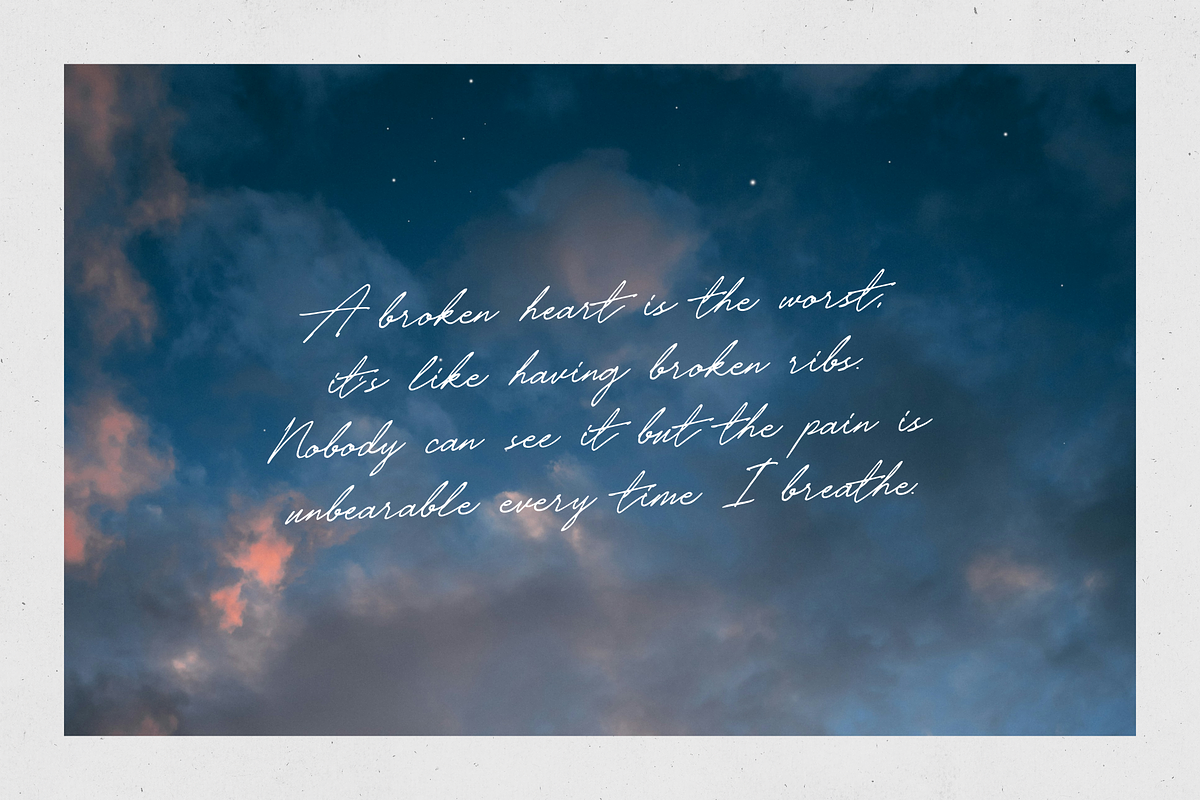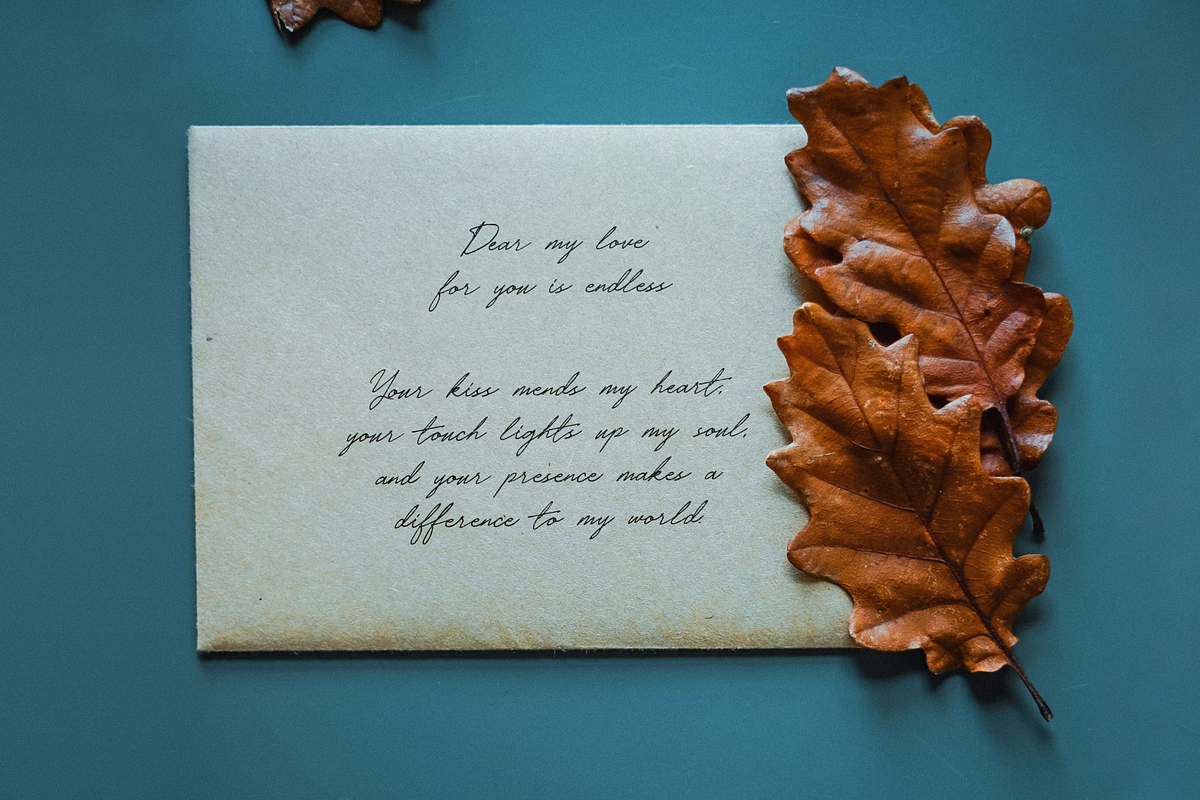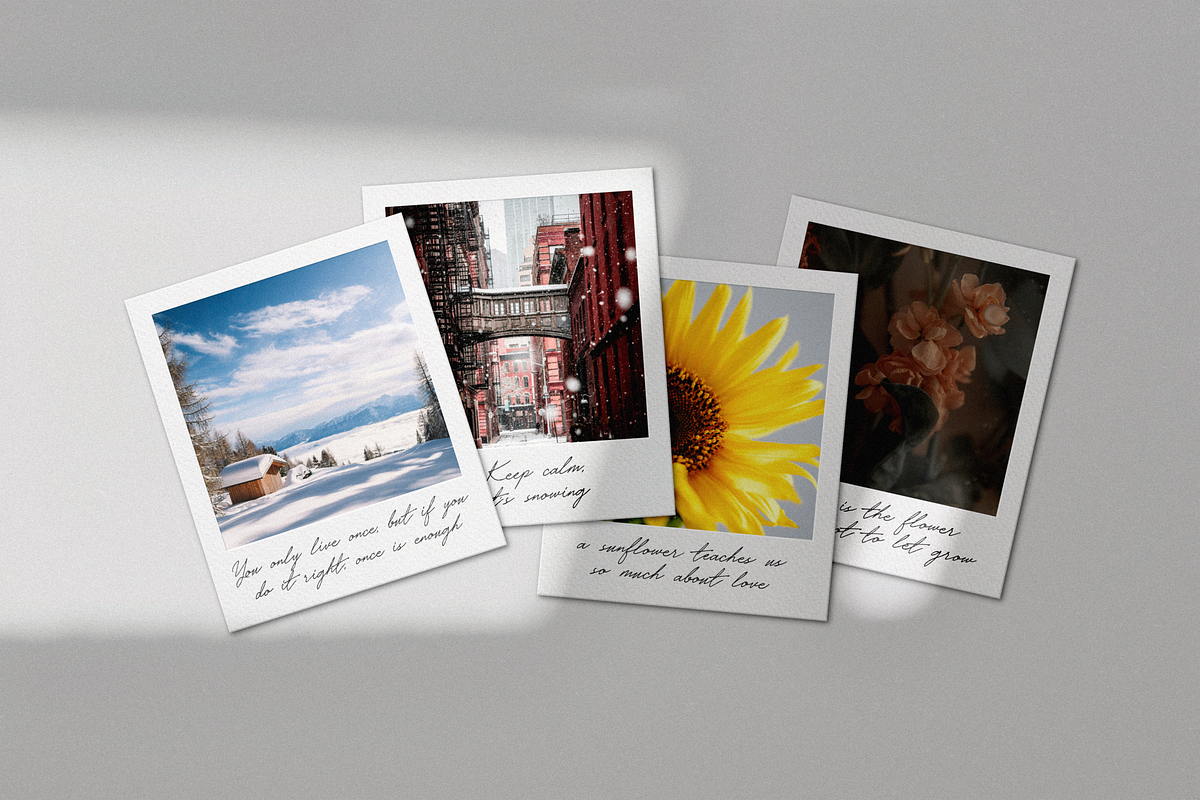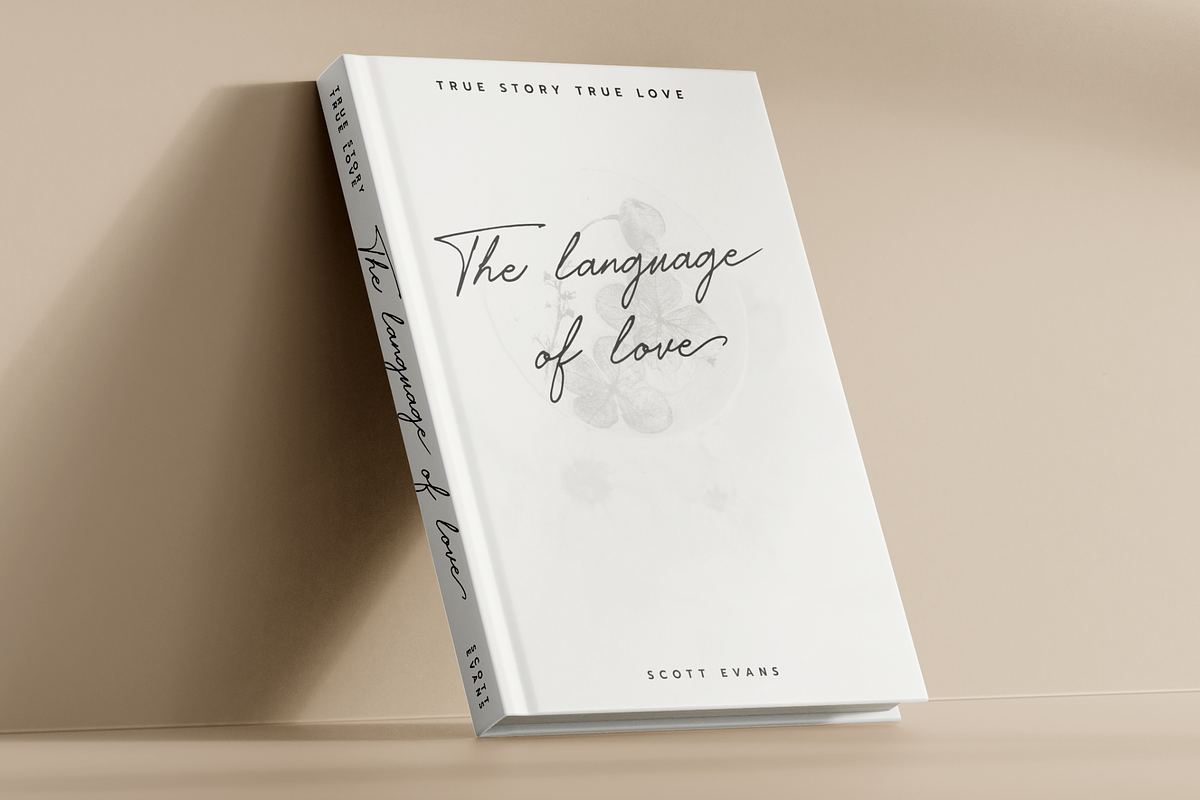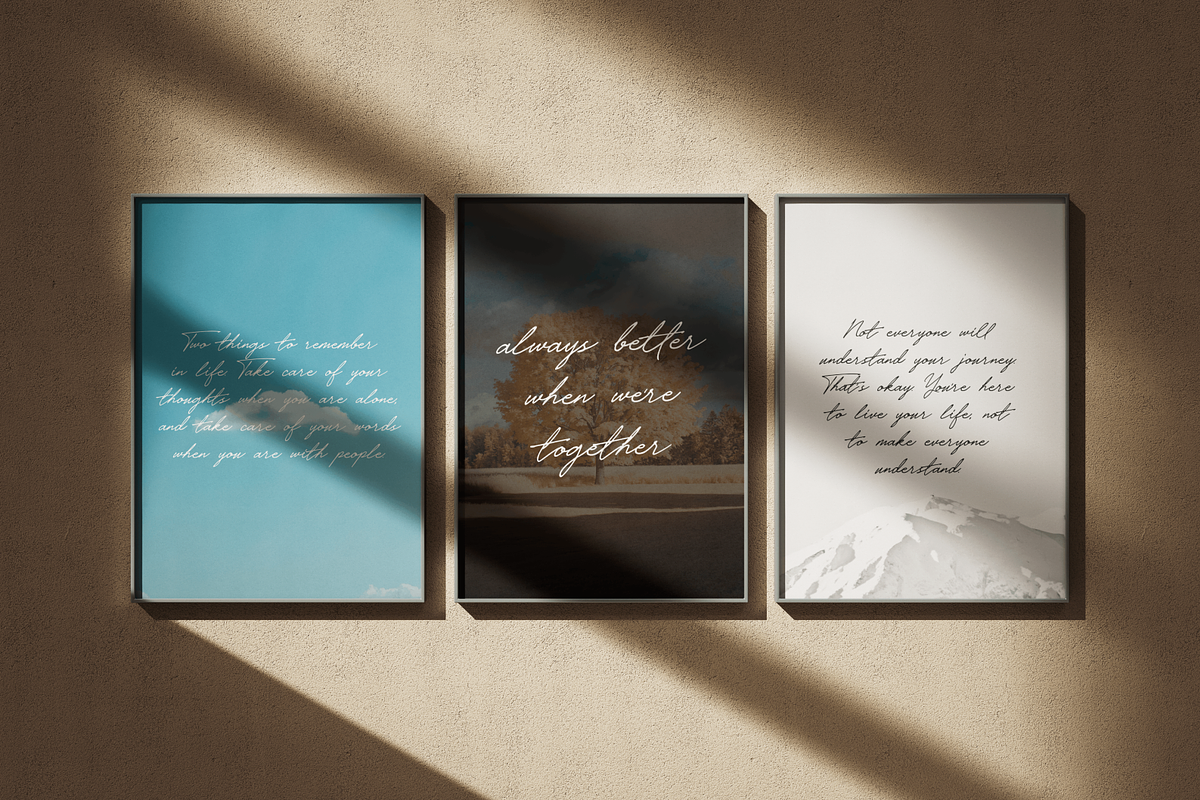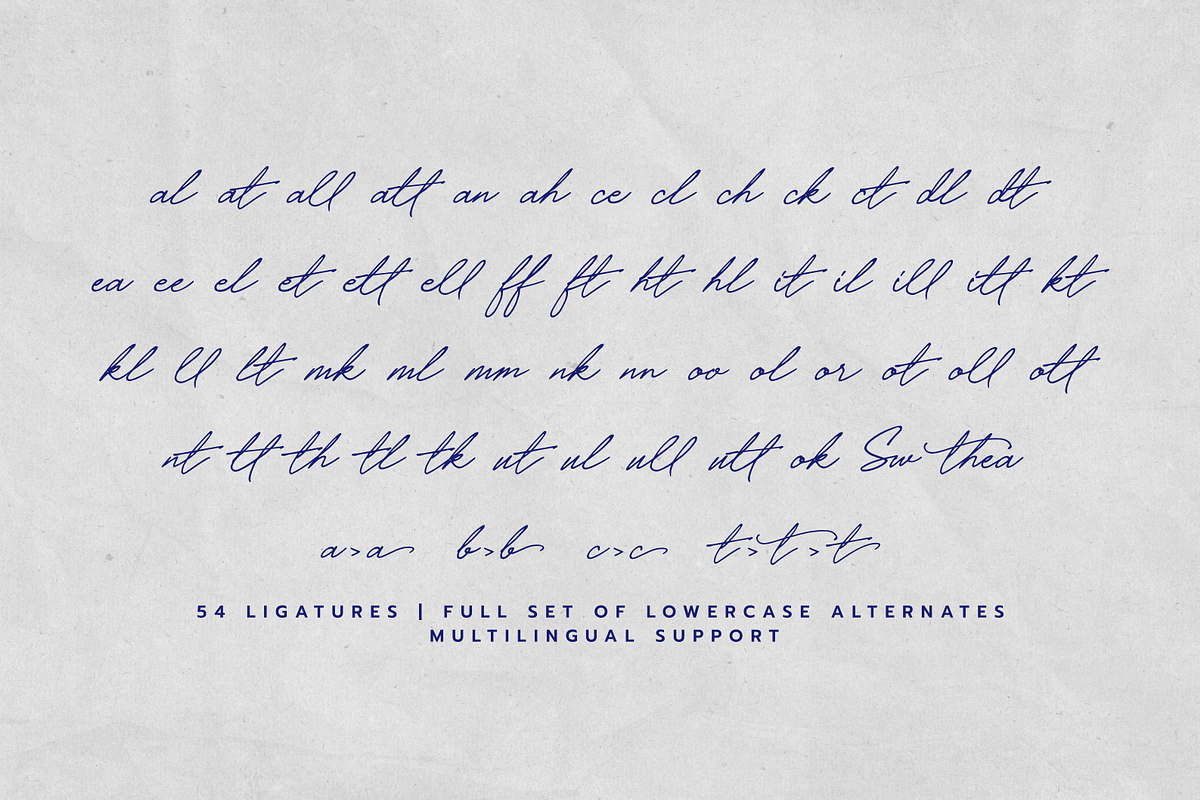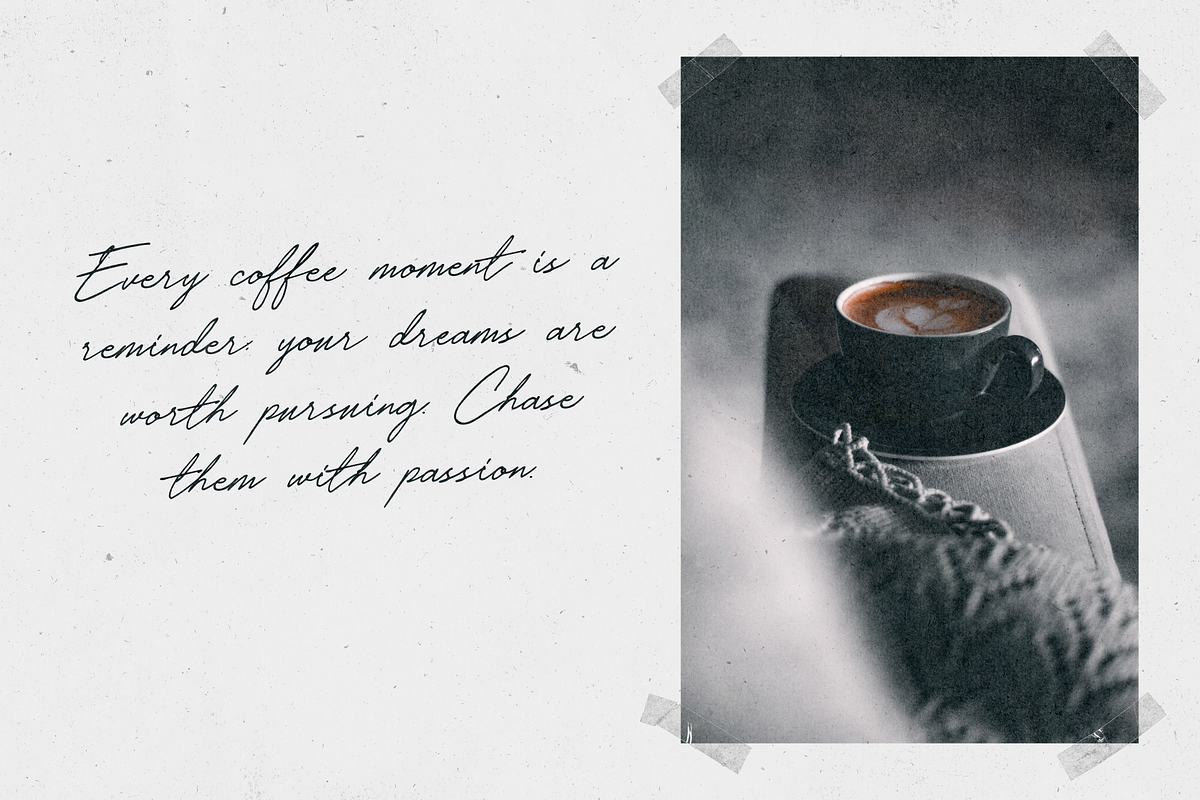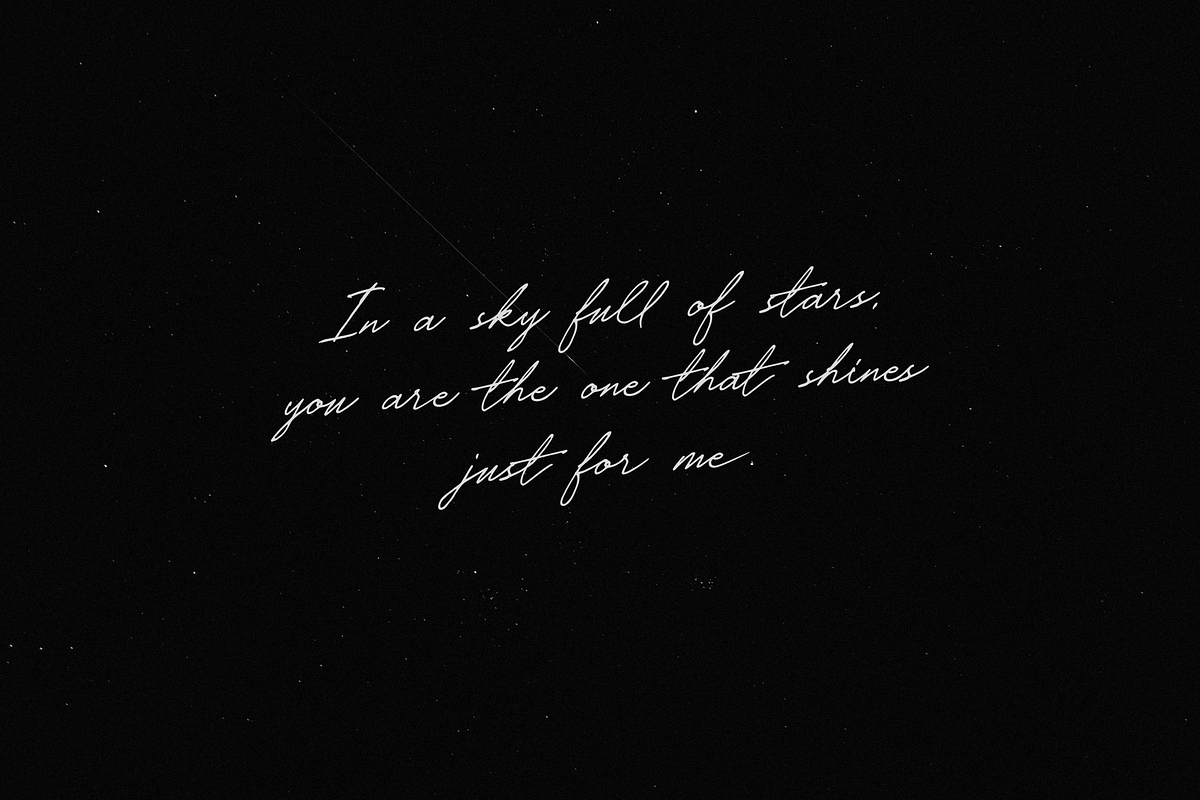
Sweetheart Handwritten Font
Sweetheart is a natural handwritten font, it has a luxurious, elegant, and formal nature. This font is perfect for beauty, fashion product, logos, product branding, printable templates, posters, flyers, shirts, or for text overlays on any background image. Font comes in All caps, with punctuation, numbers and also has multilingual support.
Sweetheart supports the following languages; English, French, Italian, Spanish, Portuguese, German, Swedish, Norwegian, Danish, Dutch, Finnish, Indonesian, Malay, Hungarian, Polish, Croatian, Turkish, Romanian, Czech, Latvian, Lithuanian, Slovak, Slovenian